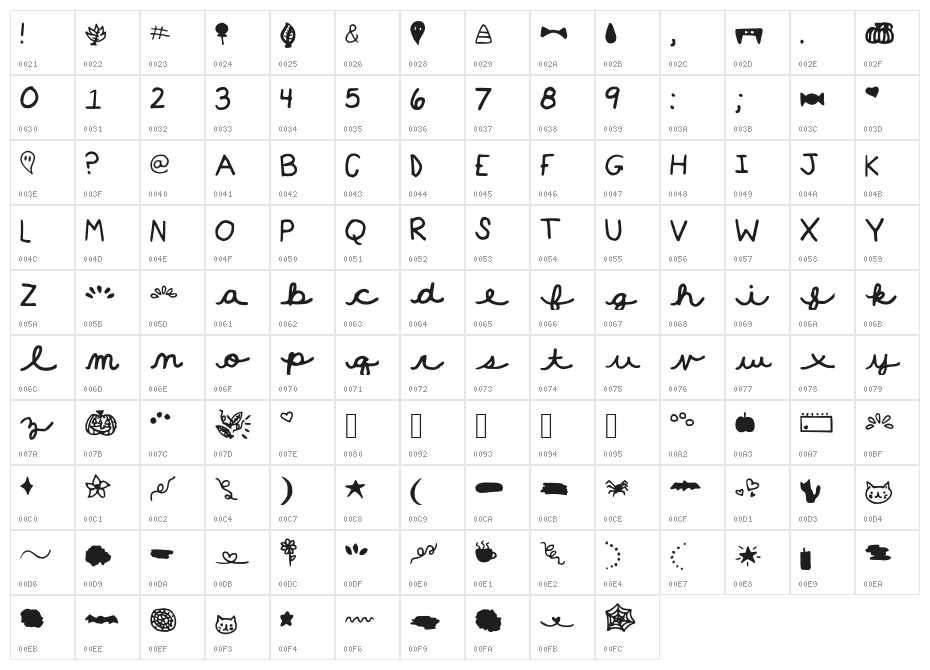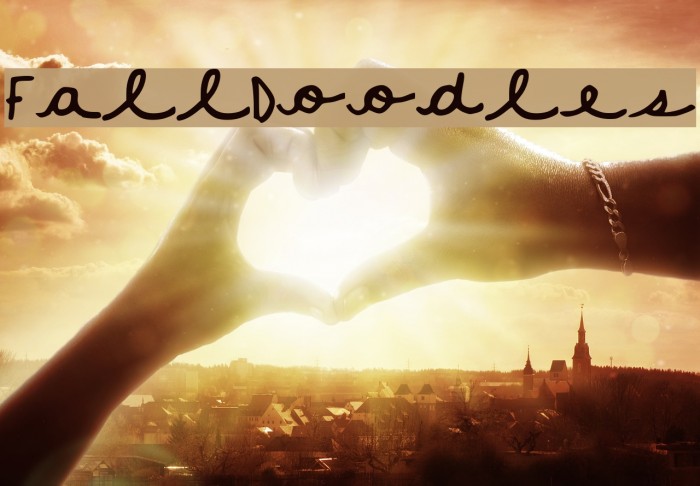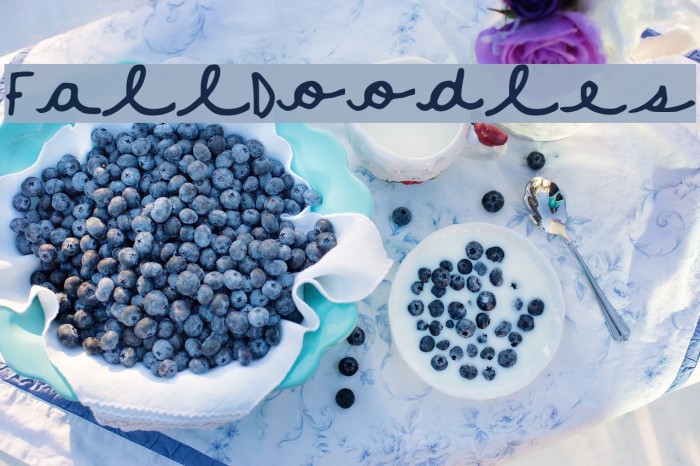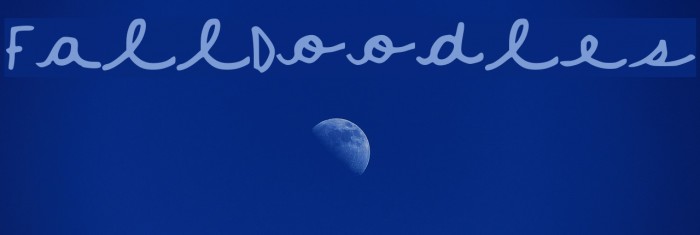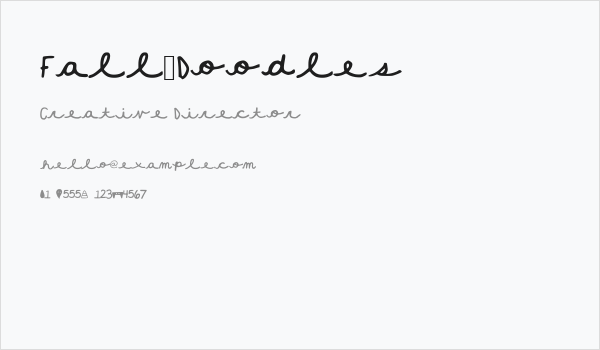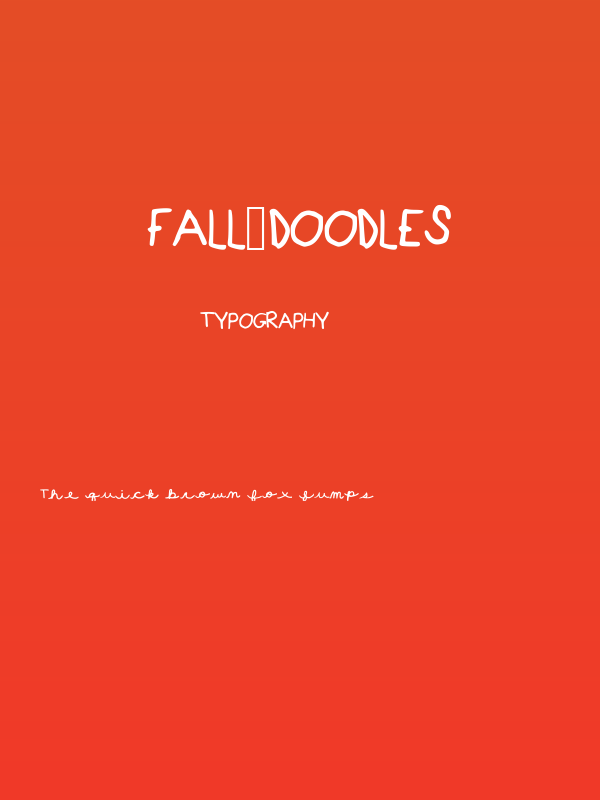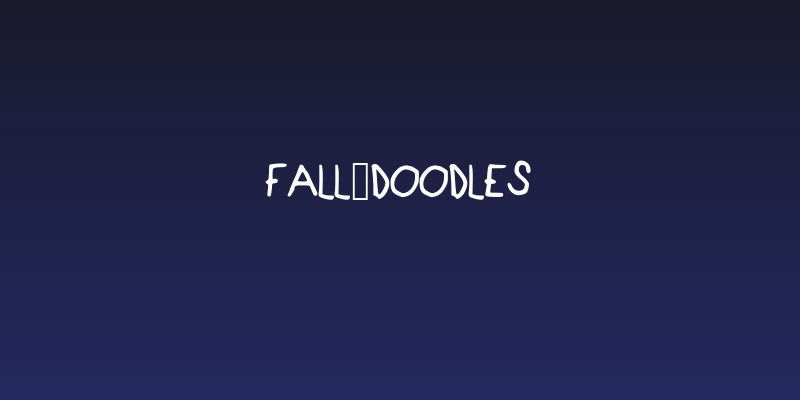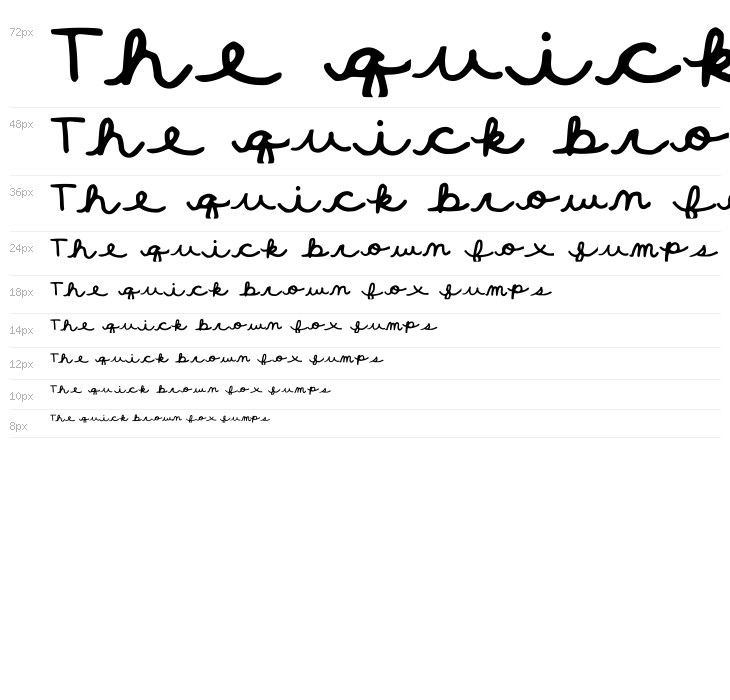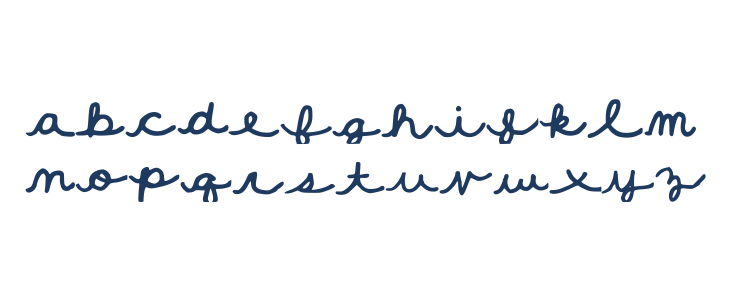
Fall_Doodles Font
This playful and whimsical font captures the essence of autumn with its hand-drawn style. The uppercase letters are bold and slightly irregular, giving a casual and friendly appearance. The lowercase letters are more fluid, resembling a cursive script that adds a touch of elegance. The numbers are consistent with the uppercase style, maintaining a bold and approachable look. Special characters include charming doodles like leaves, acorns, and pumpkins, enhancing the seasonal theme. The overall design is perfect for projects that require a fun and informal touch, such as seasonal greeting cards, invitations, or festive decorations.
| Overall Style | Whimsical, Playful |
| Use Case | Headlines, Logos, Decorative text |
| Proposed Projects | Ideal for seasonal greeting cards, invitations, festive decorations, and playful branding. |